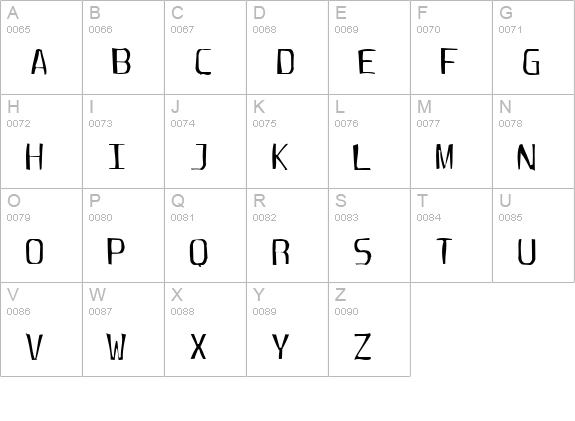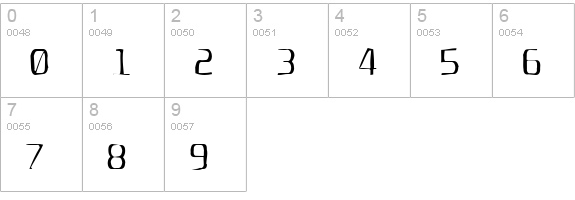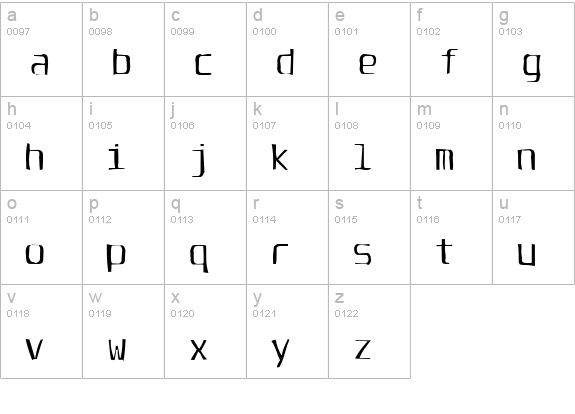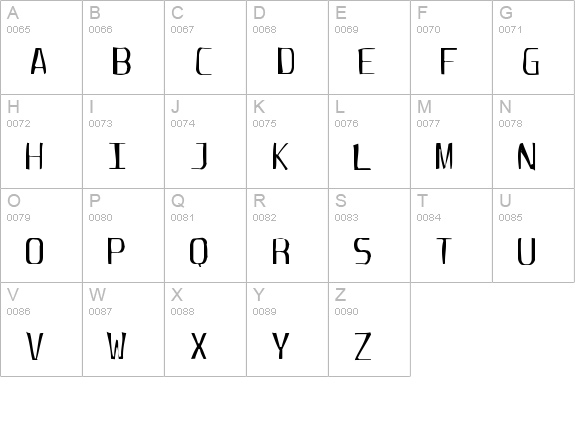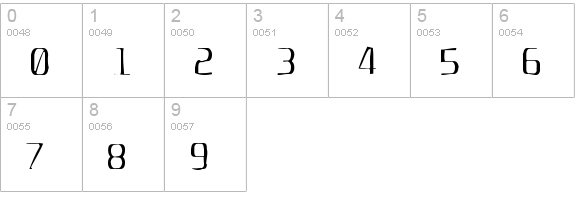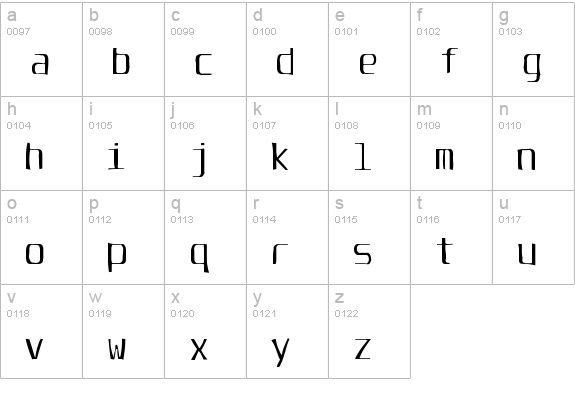
Unispace Gaunt Font Details
Unispace Gaunt font is a sleek and modern typeface designed for a variety of creative projects. Its clean lines and sharp angles give it a unique and futuristic look, making it perfect for branding, advertising, and digital designs. The tall and slender letterforms of Unispace Gaunt exude a sense of elegance and sophistication, making it a versatile choice for both headers and body text. What sets Unispace Gaunt font apart is that it is available for free download at FontsMarket.com. This means that you can easily access this stylish typeface and use it in your projects without any cost. Whether you are a designer looking to add a contemporary touch to your work or a business seeking a fresh and eye-catching font for your marketing materials, Unispace Gaunt font is a fantastic choice that won't break the bank. Download it today and elevate your designs with this exquisite and freely available typeface.